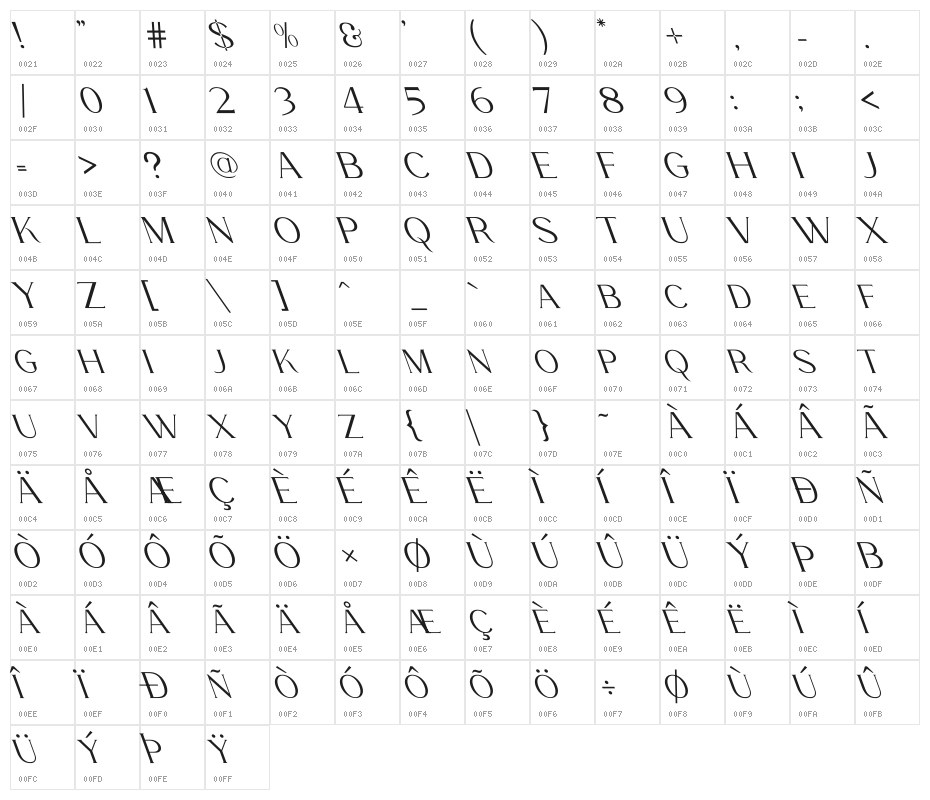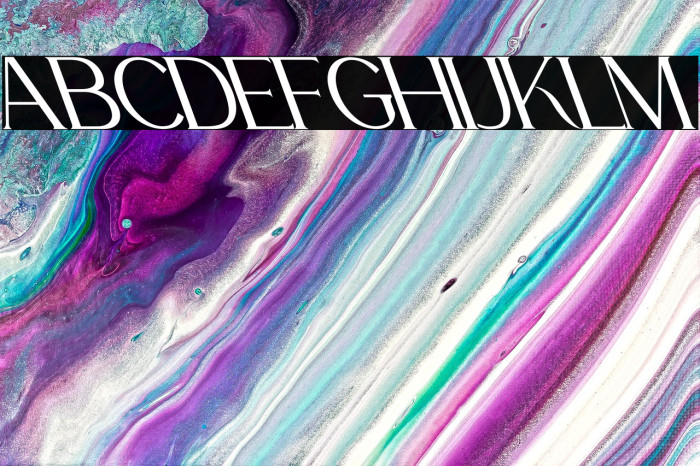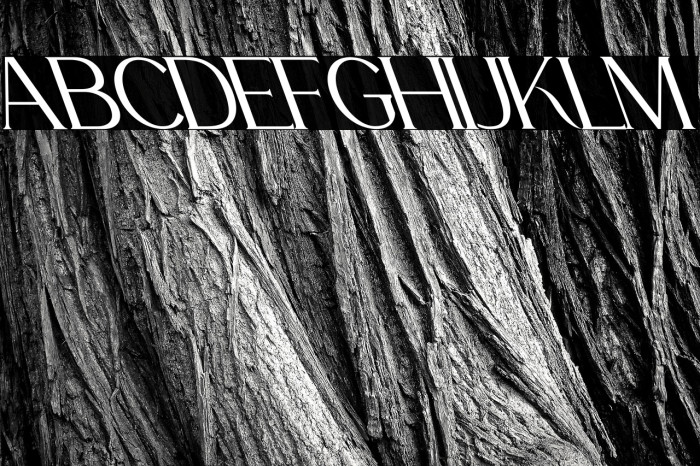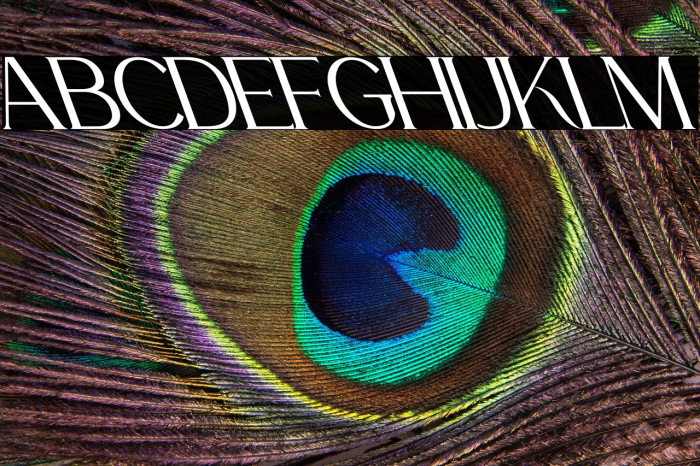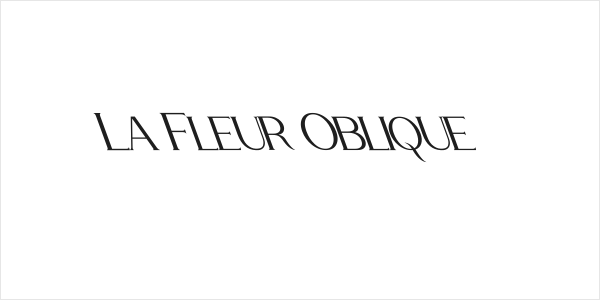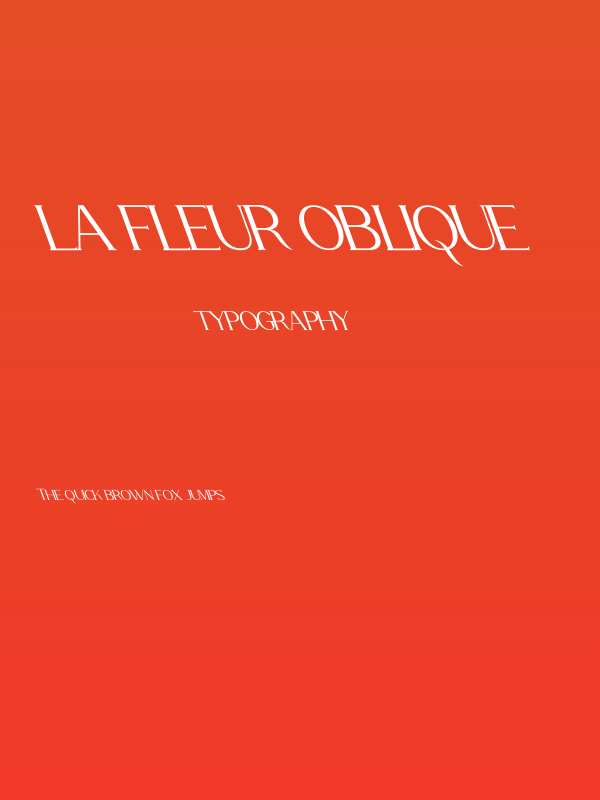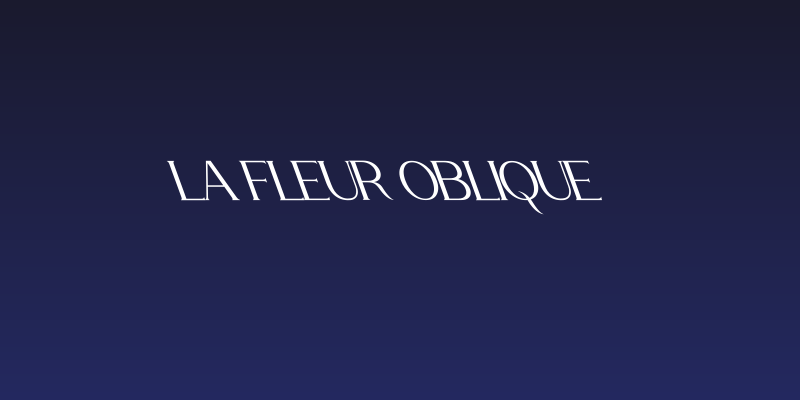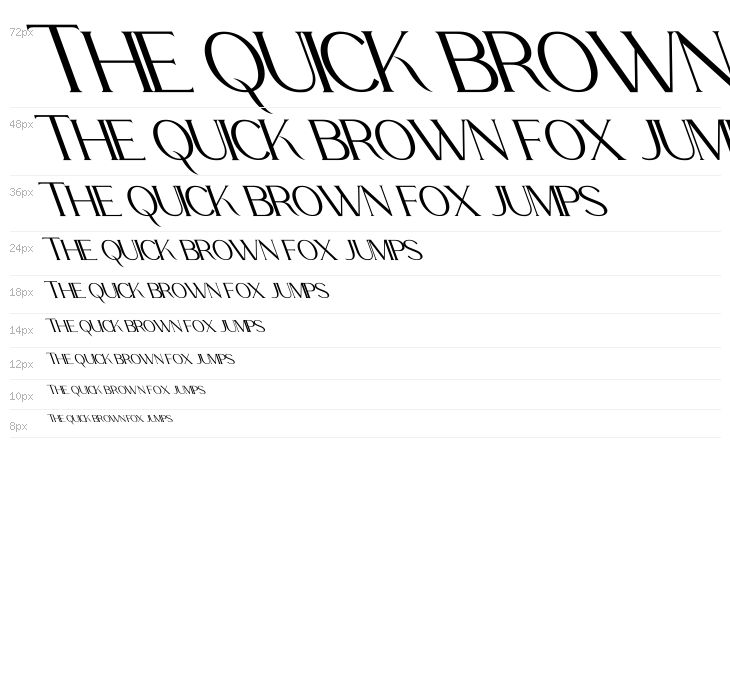
La Fleur Oblique Font
La Fleur Oblique Description
This font features an elegant and sophisticated design with a distinct oblique style. The characters are elongated and slightly slanted, giving a sense of movement and dynamism. The strokes are thin with high contrast, enhancing the font's refined appearance. The uppercase letters are particularly striking, with unique angles and curves that add a touch of modernity. The lowercase letters maintain the same oblique style, ensuring consistency throughout. Numbers and special characters are designed with the same attention to detail, making this font versatile for various applications.